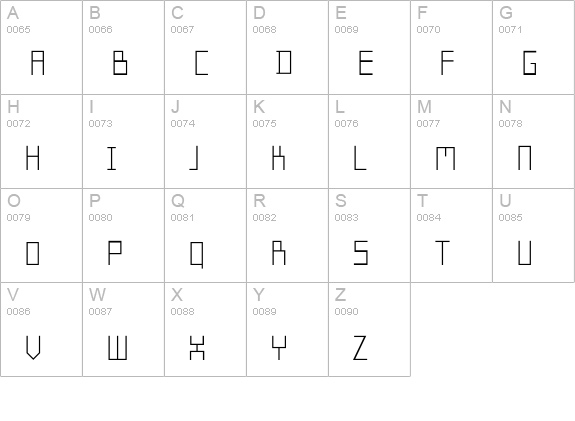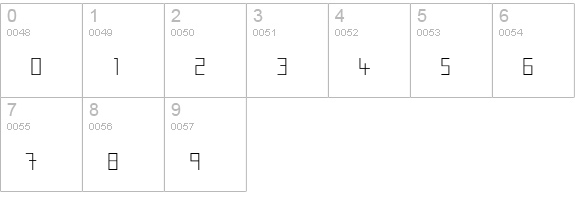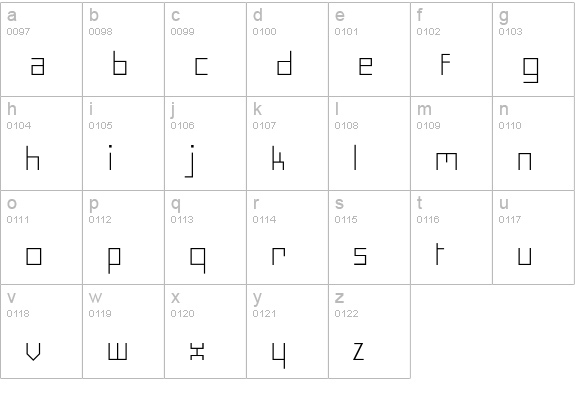
Minimum-AClair font is a modern and sleek typeface that exudes elegance and sophistication. With its clean lines and minimalist design, this font is perfect for a wide range of design projects, from branding to editorial layouts. Its timeless appeal and versatility make it a must-have in any designer's toolkit. The best part? Minimum-AClair font is completely free to download at FontsMarket.com. Now you can access this high-quality font without any cost, allowing you to elevate your designs without breaking the bank. Don't miss out on this opportunity to enhance your creative projects with the exquisite beauty of Minimum-AClair font. Download it today and see the difference it can make in your designs!